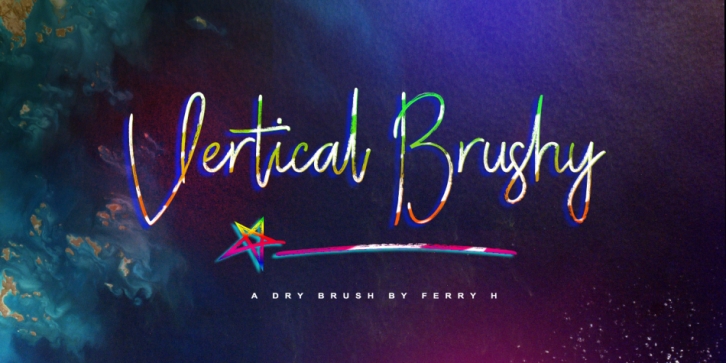
Vertical Brushy is a dingbat and script font family. This typeface has two styles and was published by feydesign.
Vertical Brushy is a dry brush script font with modern grunge script, with handletter dry brush authenthic style. Suitable for design, element design, wedding, event, t-shirt, logo, badges, sticker, and awesome work, etc…